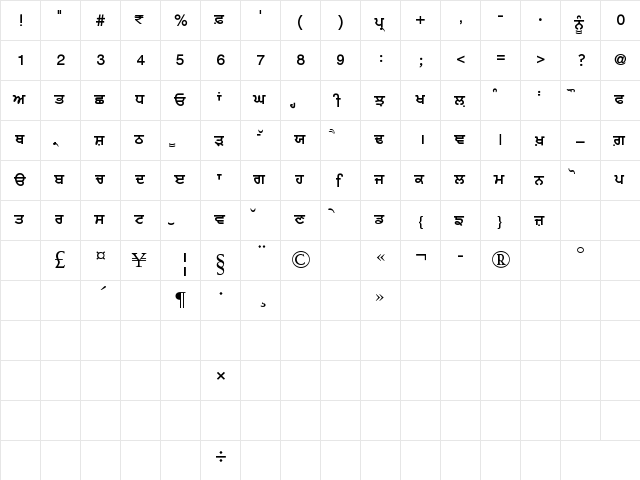
ArivMdr pIAYseIbI Regular Font Preview
ArivMdr pIAYseIbI Regular
Design Context for ArivMdr pIAYseIbI Typeface
ArivMdr pIAYseIbI takes a measured approach to typography — its balanced proportions and neutral character make it a reliable workhorse for both digital and print work.